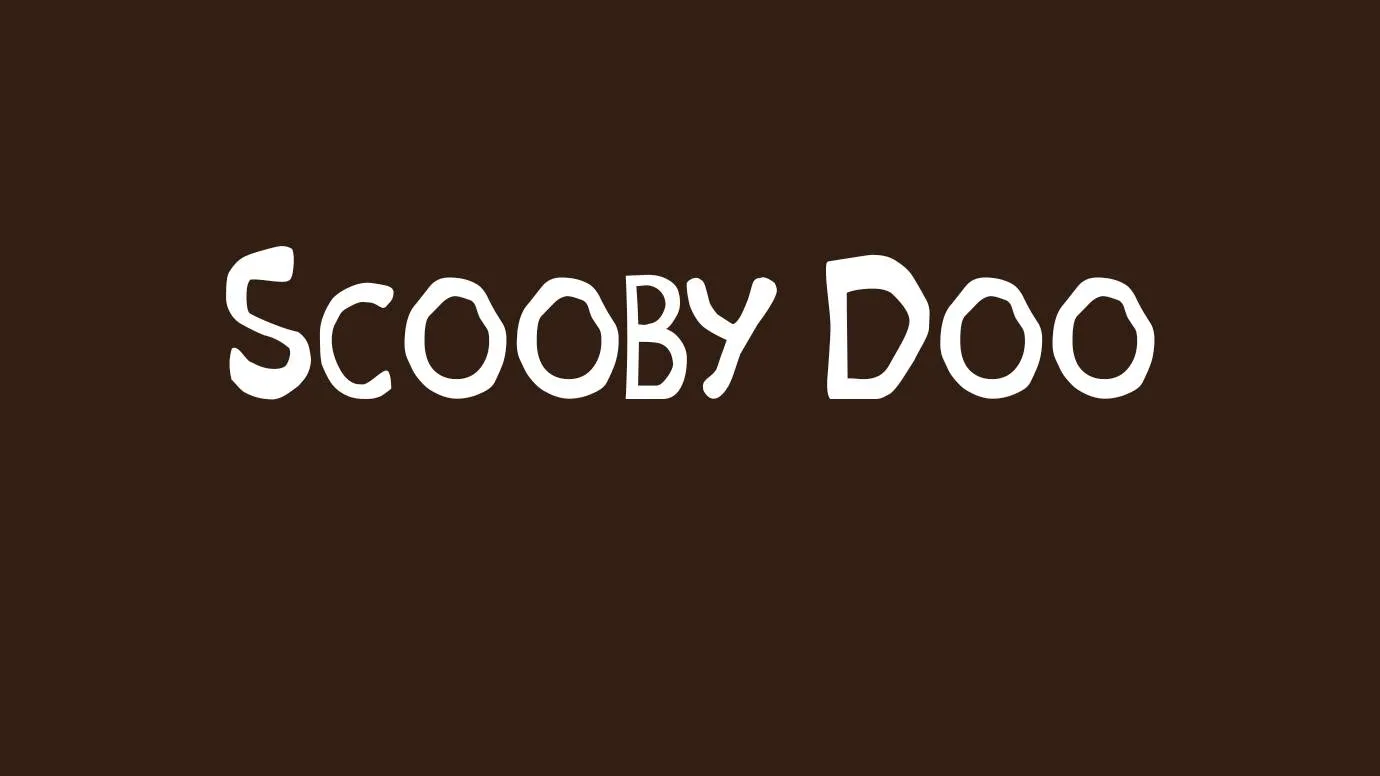
Scooby Doo Font Family is categorized in the category of the fancy family of fonts. The cartoonish look of the characters in this typeface makes it more attractive. Lauren Ashpole is the brillient mind designer who took charge of the creation of this font family.
Name | Scooby Doo Font |
Type | Fancy |
Designer | Lauren Ashpole |
What is the kind of Scooby Doo Font?
This is a cartoon fancy font and is available in a single regular style designed by Lauren Ashpole.
Where we can use Scooby Doo Font?
This typeface is best for use in different types of logos designs, emblems, a variety of card designs, and others.
Is Scooby Doo a Google font?